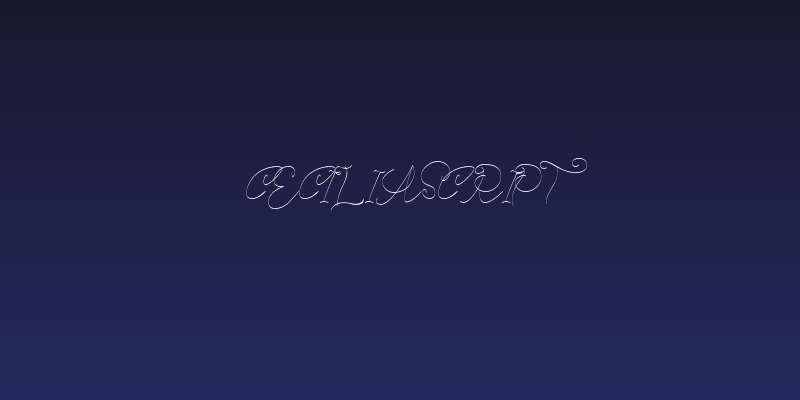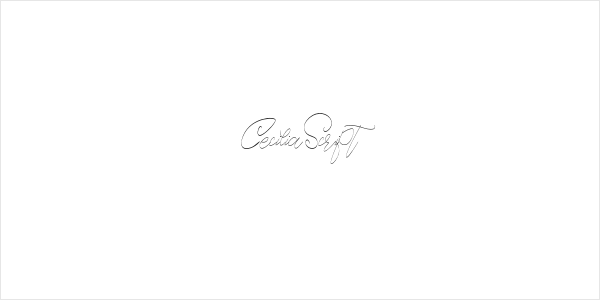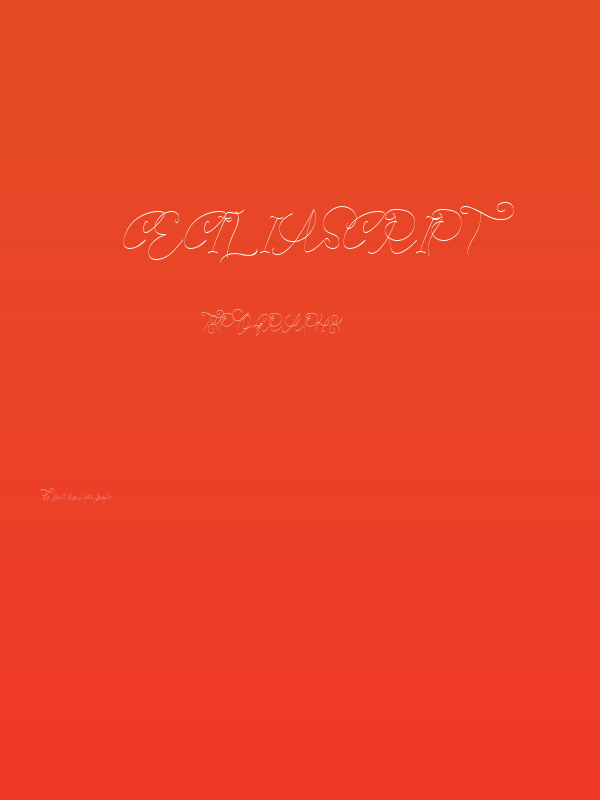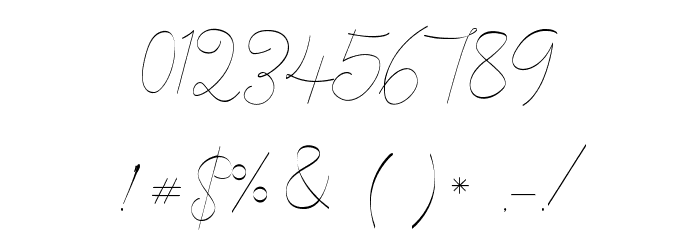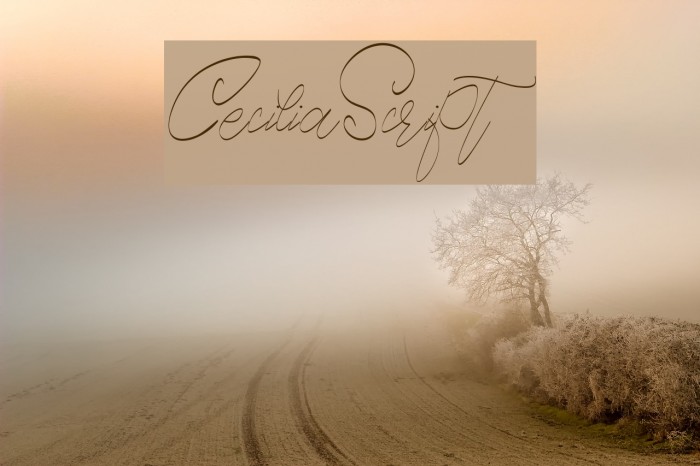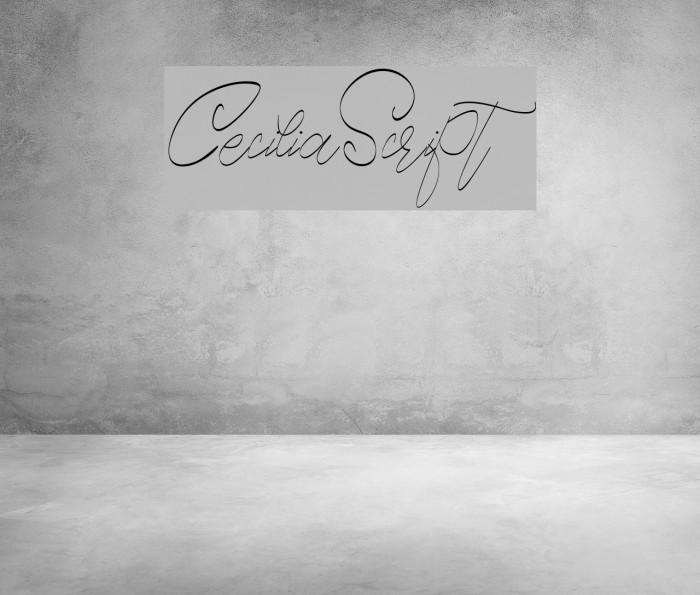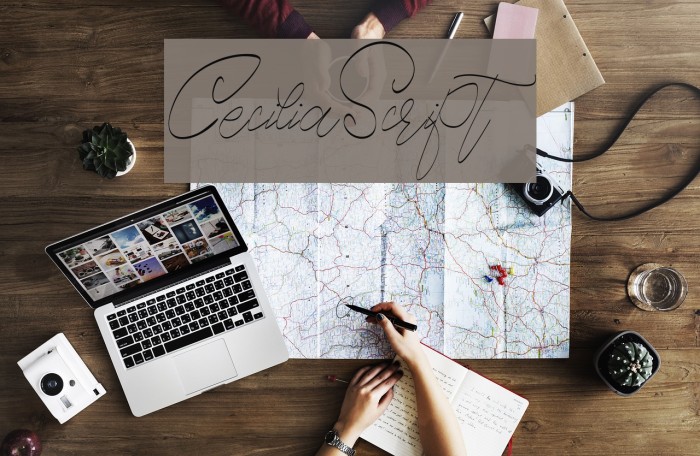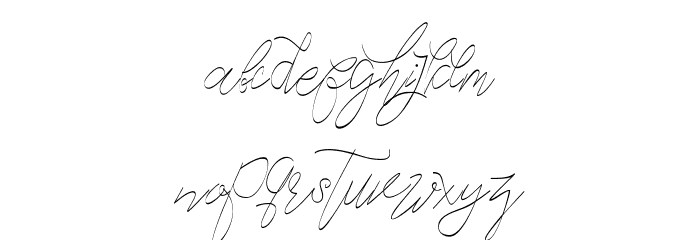
CeciliaScript Font
CeciliaScript Description
This elegant script font features a flowing, cursive style with intricate loops and swirls, giving it a sophisticated and artistic appearance. The uppercase letters are particularly ornate, with extended flourishes that add a touch of grandeur. The lowercase letters maintain a consistent flow, enhancing readability while preserving the decorative nature. The numerals and special characters are designed to match the overall aesthetic, ensuring a cohesive look across all text. This font is ideal for projects that require a touch of elegance and creativity, such as invitations, greeting cards, and branding materials.
| Use Case | Invitations, Greeting cards, Branding |
| Proposed Projects | Ideal for wedding invitations, greeting cards, elegant branding, and artistic projects. |